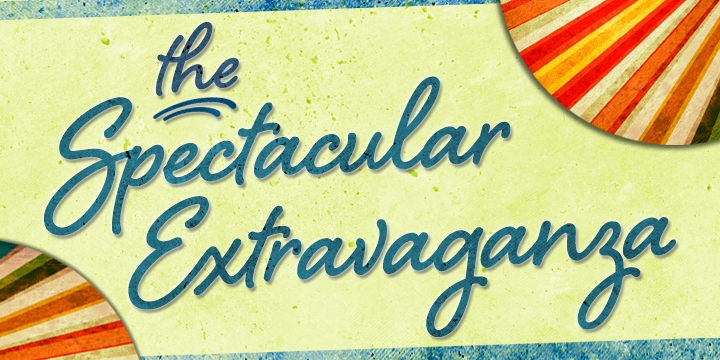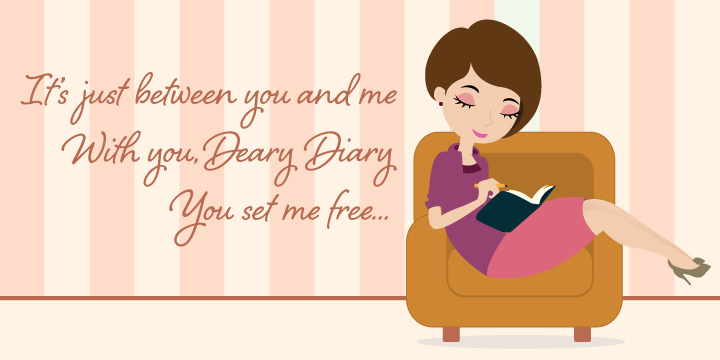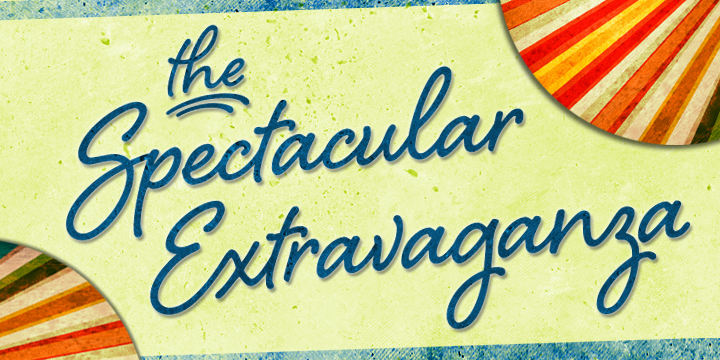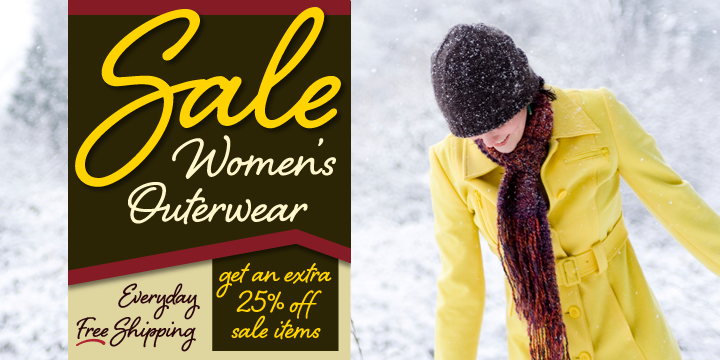
Shelby is a script font family. This typeface has two styles and was published by Laura Worthington.
Shelby is a monoline, semi-connected script typeface based on hand lettering created with a Speedball ‘B’ metal nib. It has a natural appearance of handwriting, yet its style yields enough strength to be used for a variety of purposes – such as headlines, logos and eye catching call-outs. Shelby features several automatic ligatures, stylistic and contextual alternates along with 20 ornaments that have been designed to further its handwritten look.